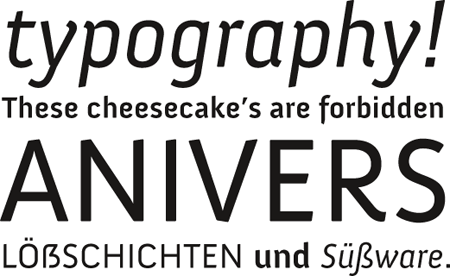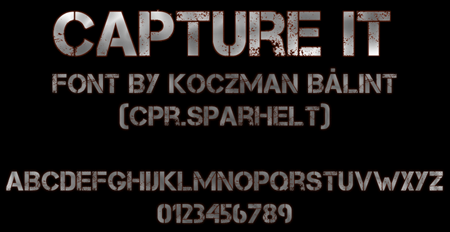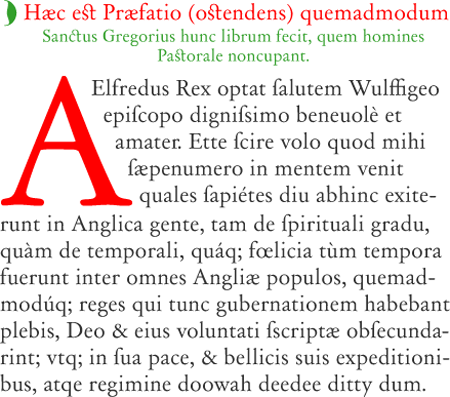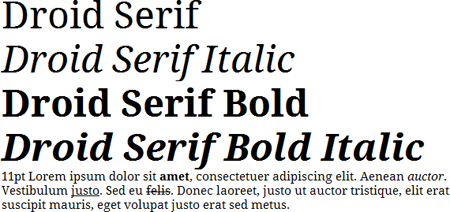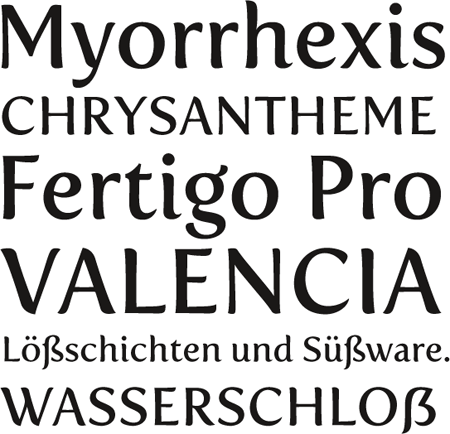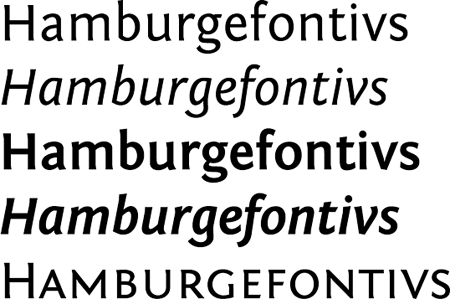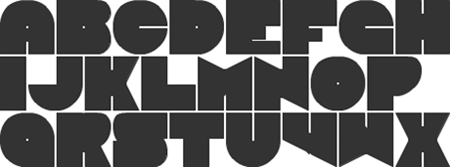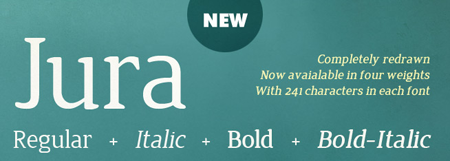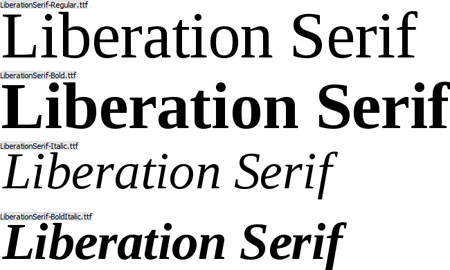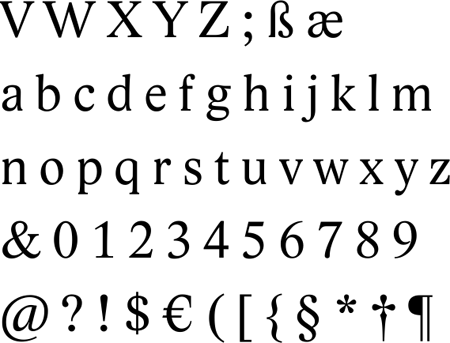
Free For All: Free Fonts Galore (Part 2)
Body Copy and Headline
These typefaces have the clean legibility required for use in high density such as in body copy, or they’re suited for large-size display in headlines.